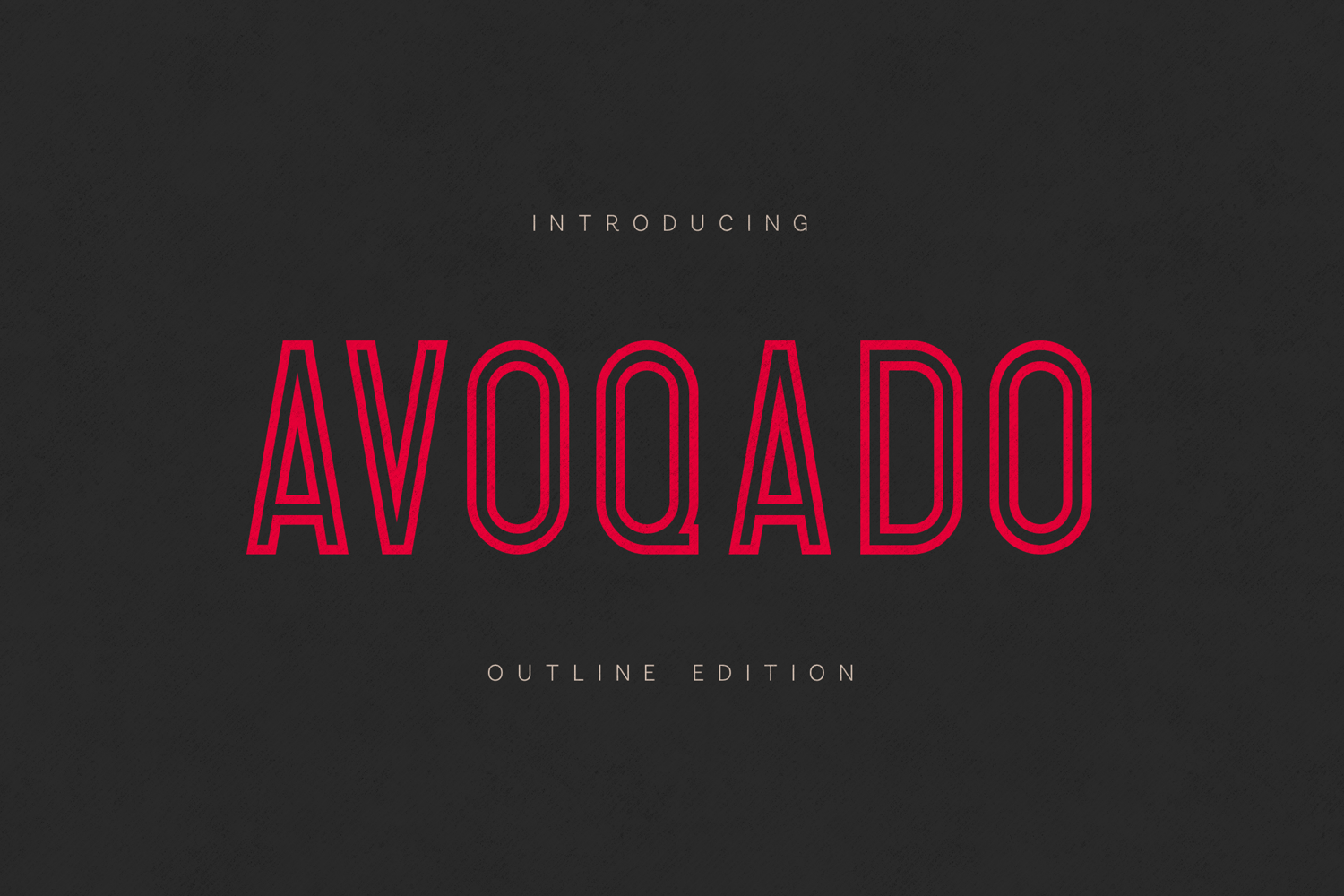
AvoQado Outline Edition Modern Display Sans Serif Font
AvoQado – Outline Edition is a modern display sans serif font designed for striking headlines and high-impact visual statements. Featuring clean outlined letterforms, geometric structure, and a bold contemporary feel, this font is ideal for posters, branding, logos, editorial layouts, album covers, fashion visuals, and experimental typography.
The Outline Edition brings a strong graphic presence while maintaining clarity and balance. Its hollow construction creates depth and rhythm, making AvoQado perfect for large-scale text, layered compositions, and modern design systems that demand attention.
AvoQado – Outline Edition is crafted for designers who want bold structure, modern energy, and graphic impact in their typography.